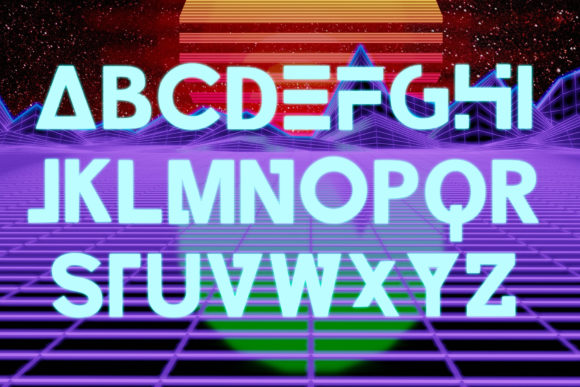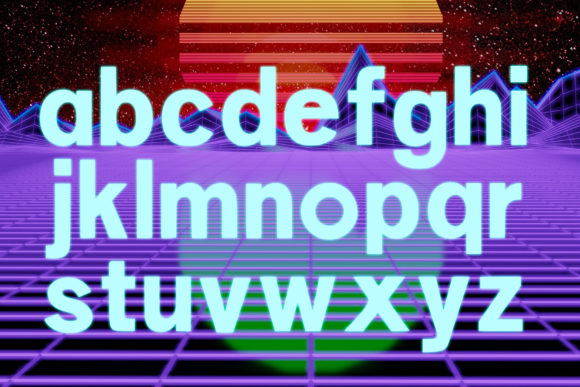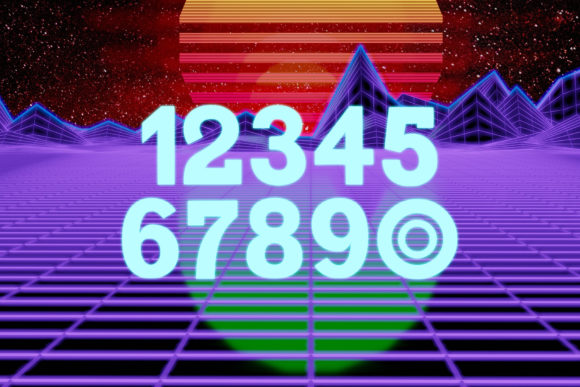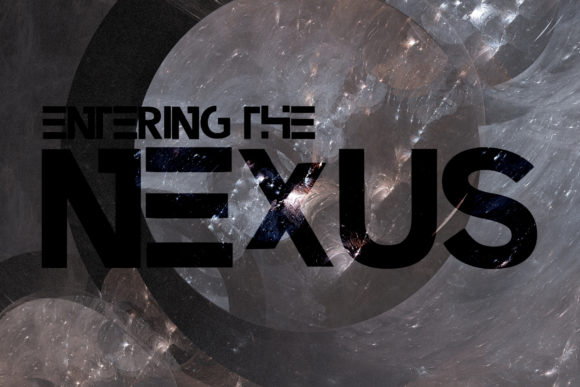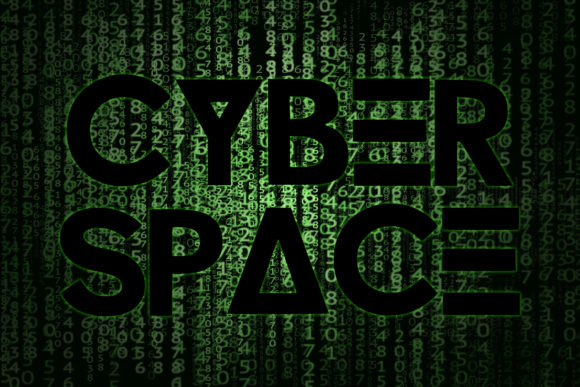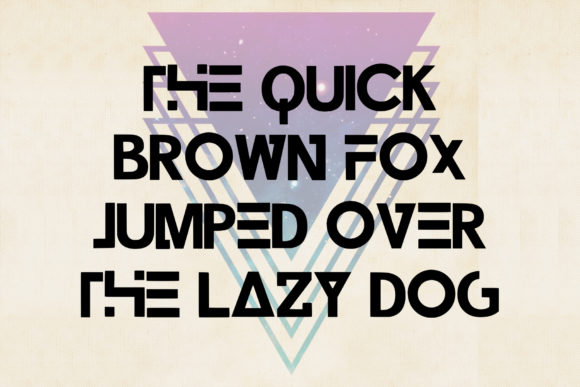
Introducing Control Font: A Futuristic Display Font Inspired by Sci-Fi
In the realm of typography, fonts play a crucial role in conveying the tone and aesthetic of a design. For designers and crafters looking to add a touch of futurism to their work, Control Font is an extraordinary display font that is sure to impress. Inspired by the sleek and high-tech world of science fiction, Control Font is a cutting-edge typeface that is perfect for projects that require a bold and avant-garde look.
The Inspiration Behind Control Font
Control Font draws its inspiration from the futuristic landscapes and technological advancements often depicted in science fiction. The font’s design is characterized by clean lines, geometric shapes, and a sense of sleekness that evokes the feeling of advanced technology and innovation. Each letterform is carefully crafted to convey a sense of precision and modernity, making Control Font an ideal choice for designers who want to add a touch of futurism to their work.
Key Features of Control Font
So, what sets Control Font apart from other display fonts? Here are some of its key features:
• Futuristic feel: Control Font has a distinctly futuristic feel that is perfect for designs that require a high-tech look.
• Geometric shapes: The font’s design is characterized by geometric shapes and clean lines, giving it a sleek and modern appearance.
• Bold and attention-grabbing: Control Font is a display font that is designed to grab attention and make a statement.
• Highly legible: Despite its futuristic design, Control Font is highly legible, even at large sizes.
Use Cases for Control Font
Control Font is a versatile typeface that can be used in a variety of design projects, including:
• Poster design: Control Font is perfect for creating eye-catching posters that require a bold and attention-grabbing headline.
• Logo design: The font’s futuristic feel makes it an ideal choice for logo design, particularly for tech startups and companies that want to convey a sense of innovation.
• Packaging design: Control Font can add a touch of futurism to packaging design, making it perfect for products that require a bold and modern look.
• Web design: The font’s clean lines and geometric shapes make it a great choice for web design, particularly for websites that require a bold and attention-grabbing headline.
Tips for Using Control Font
Here are some tips for using Control Font in your design projects:
• Use it sparingly: Control Font is a bold and attention-grabbing font, so use it sparingly to avoid overwhelming the design.
• Pair it with a neutral font: Pair Control Font with a neutral font to create contrast and add visual interest to the design.
• Experiment with different sizes: Control Font is highly legible, even at large sizes, so experiment with different sizes to create visual hierarchy.
Control Font is an extraordinary display font that is perfect for designers and crafters looking to add a touch of futurism to their work. Inspired by the sleek and high-tech world of science fiction, Control Font is a cutting-edge typeface that is sure to impress. With its bold and attention-grabbing design, Control Font is ideal for a variety of design projects, from poster design to web design. So, if you’re looking for a font that will help you create a bold and futuristic look, look no further than Control Font.